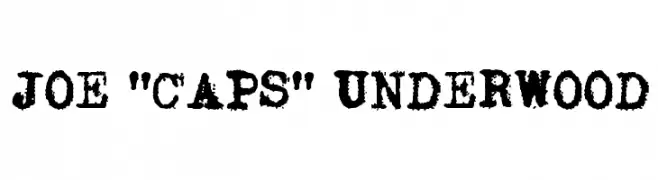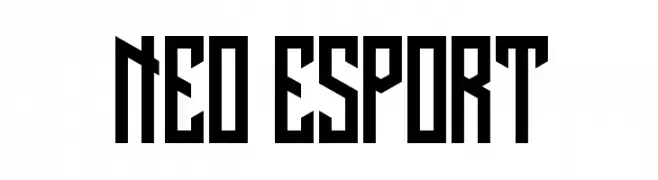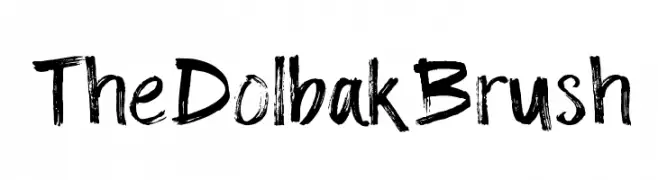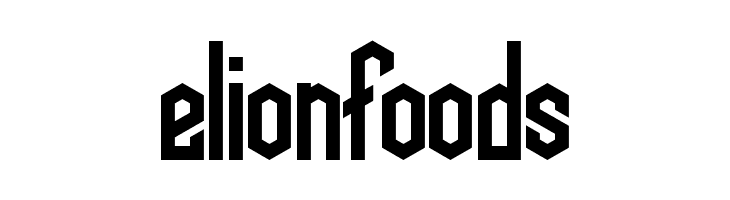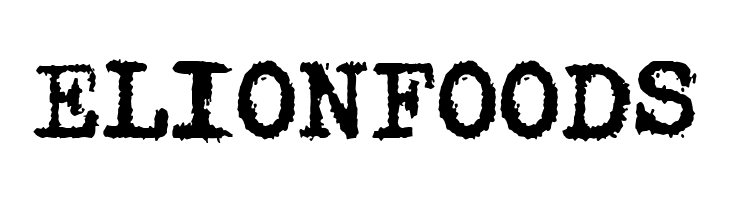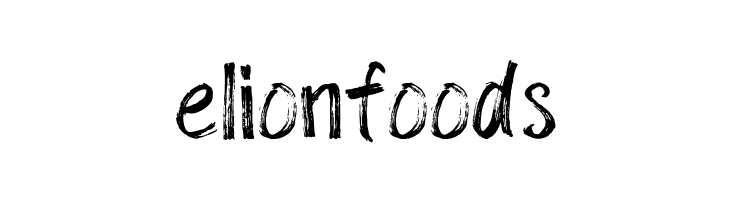
( Phelan Riessen - phelanriessen.com )
A bold, distressed font with a vintage, grunge aesthetic.
( PutraCetol Studio - Putra Novembria Candra Kusuma - creativemarket.com/putracetol )
A tall, narrow font with clean, elongated letterforms and a minimalistic style.
( PutraCetol Studio - Putra Novembria Candra Kusuma - creativemarket.com/putracetol )
A tall, narrow font with a rough, vintage texture and a handcrafted feel.
( Richard Khuptong - khuptong.com )
A dynamic brushstroke font with bold, expressive characters.
( pOPdOG fONTS - Dimitris Kolyris - popdog_fonts.tripod.com/ )
A bold, geometric font with a technical, architectural style.
( Dieter Lausus )
A playful, handwritten-style font with dynamic strokes and a casual feel.
( Harris Type - www.harristype.com/ )
A bold, high-contrast decorative font with dramatic serifs and curves.
A playful, hand-drawn font with irregular, wavy letterforms.
A bold, geometric font with a futuristic, angular design.